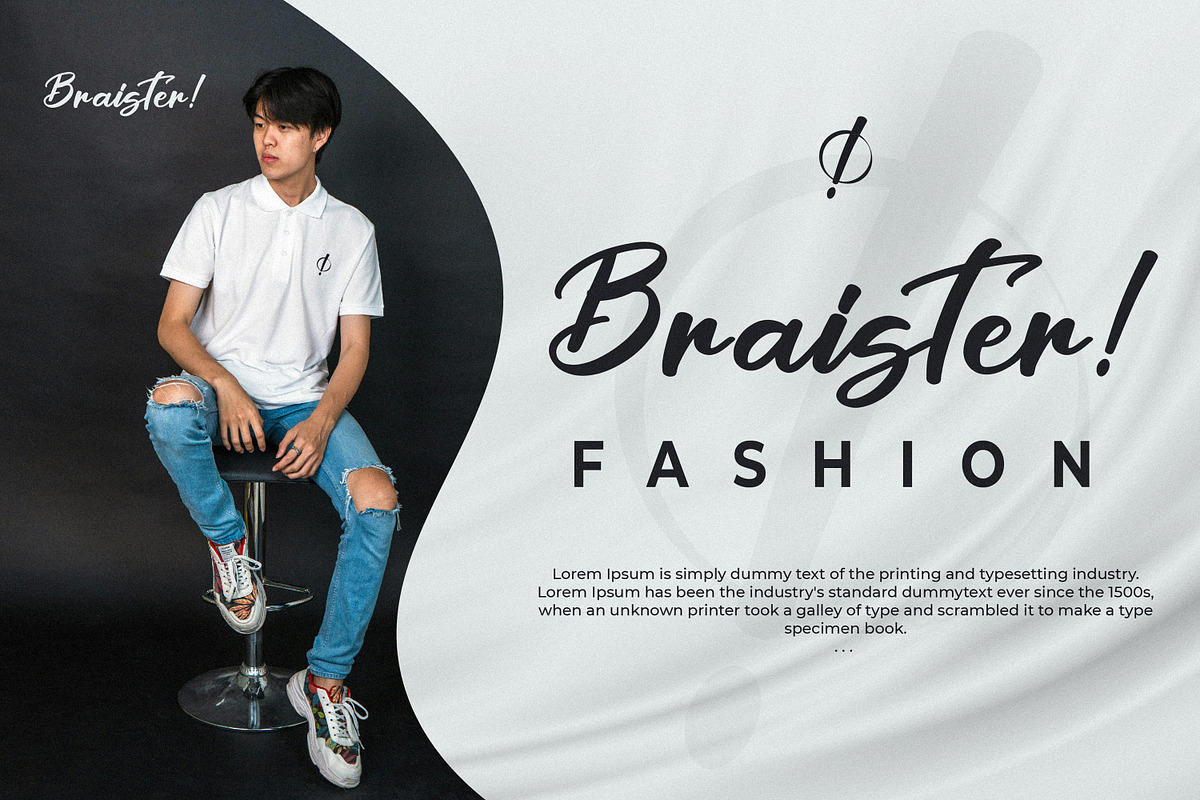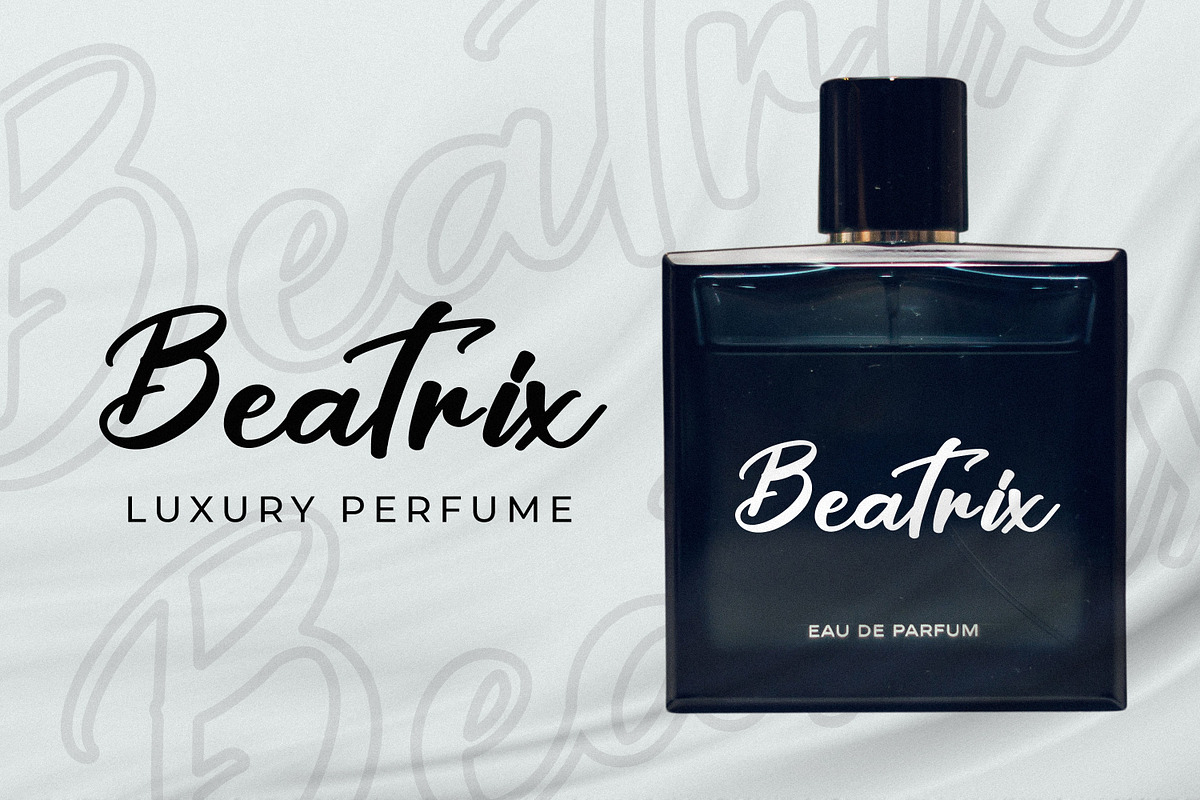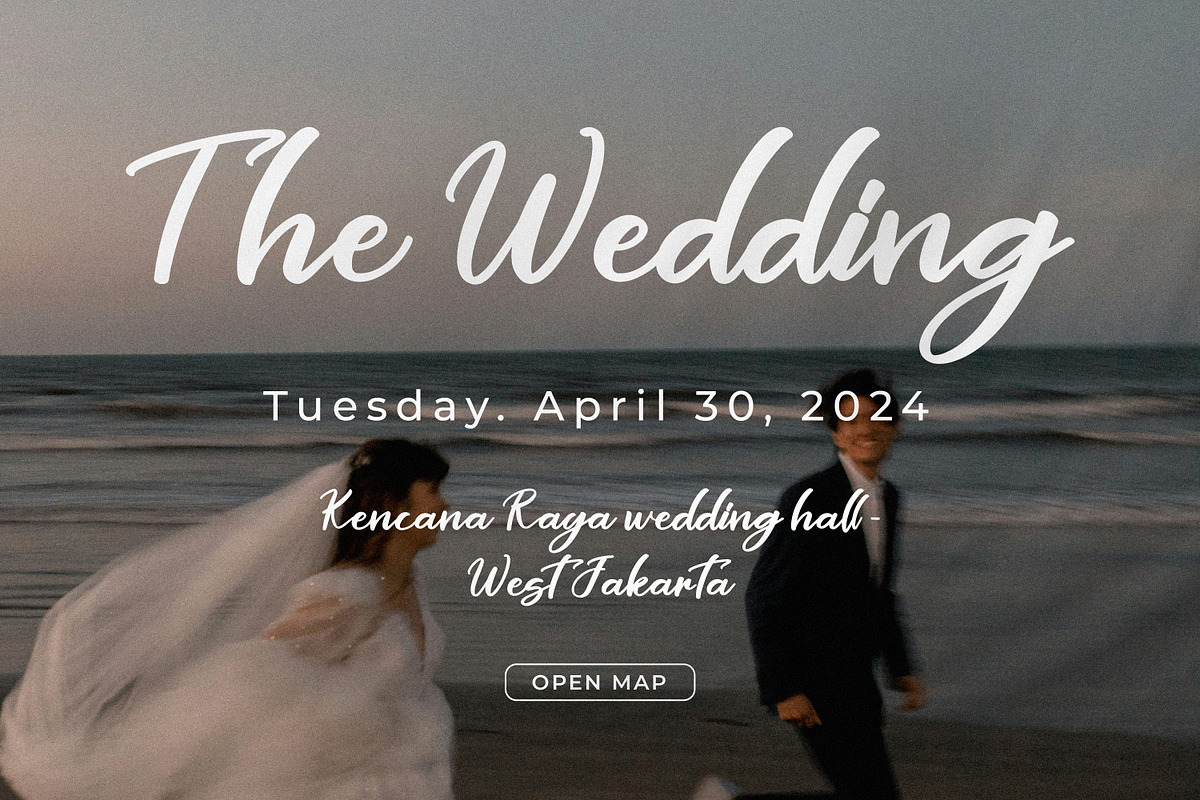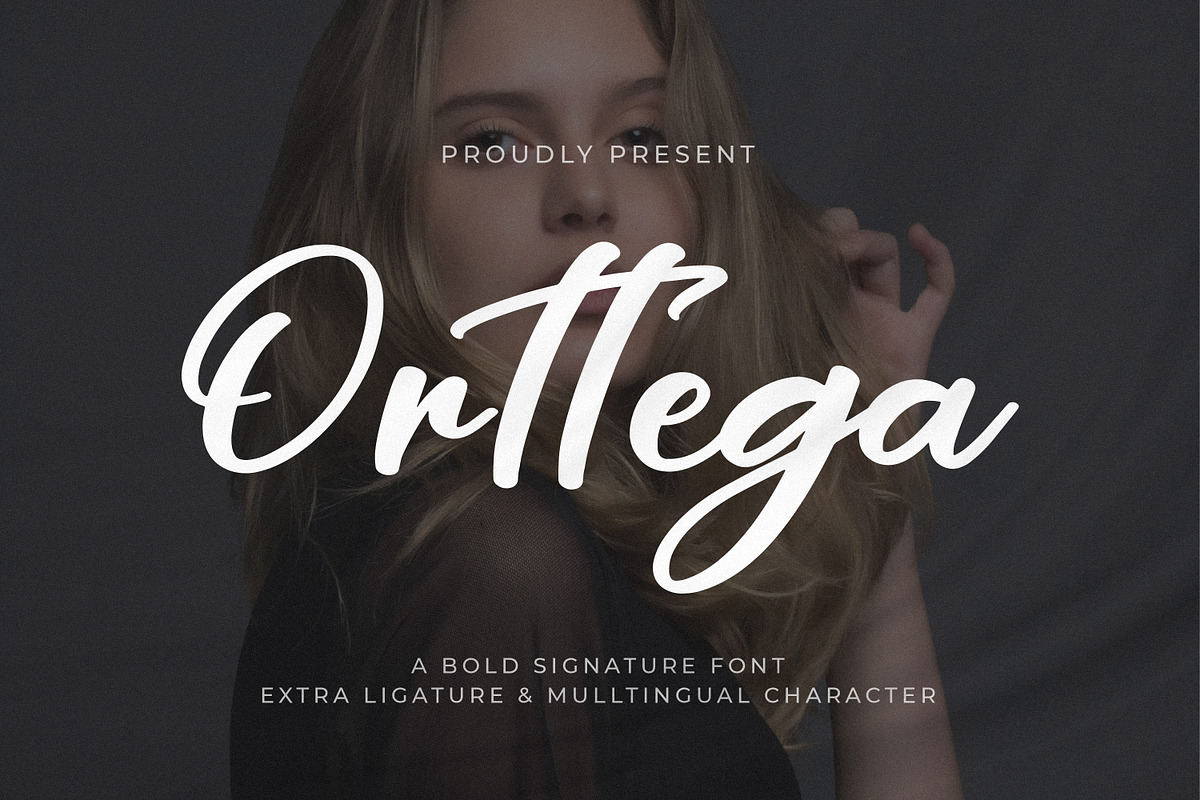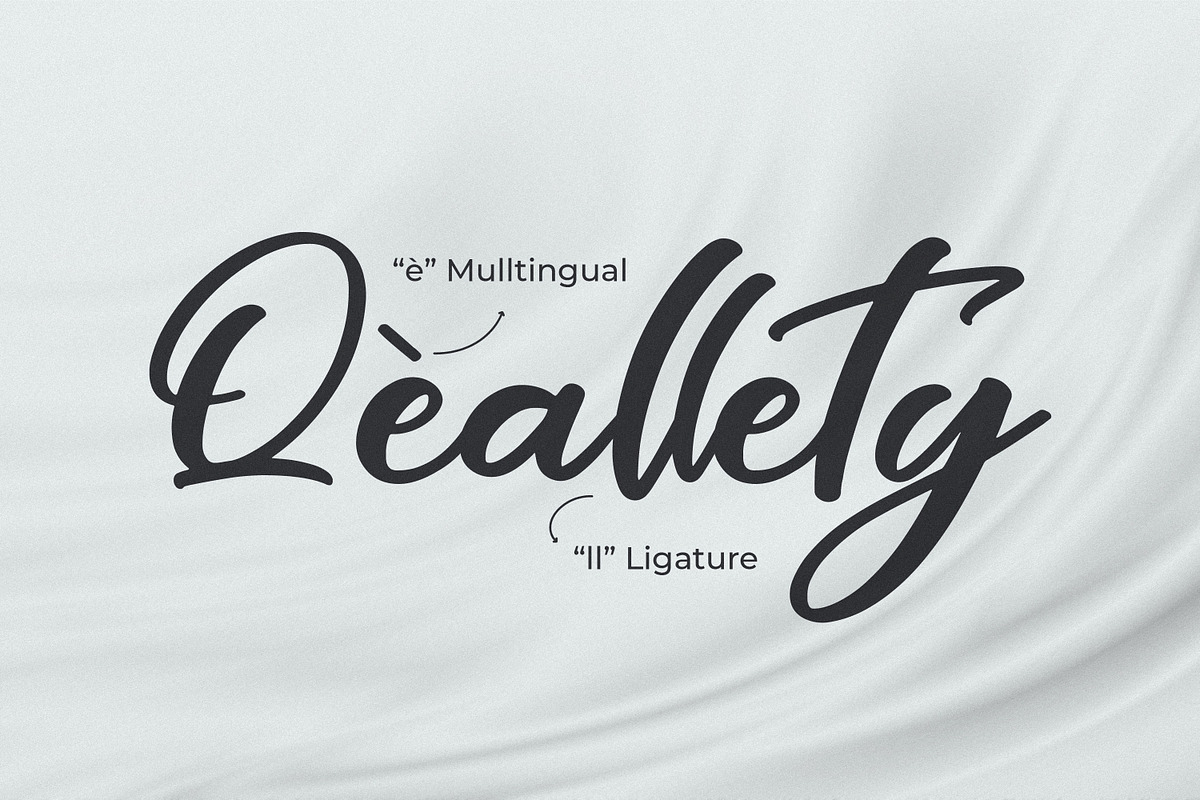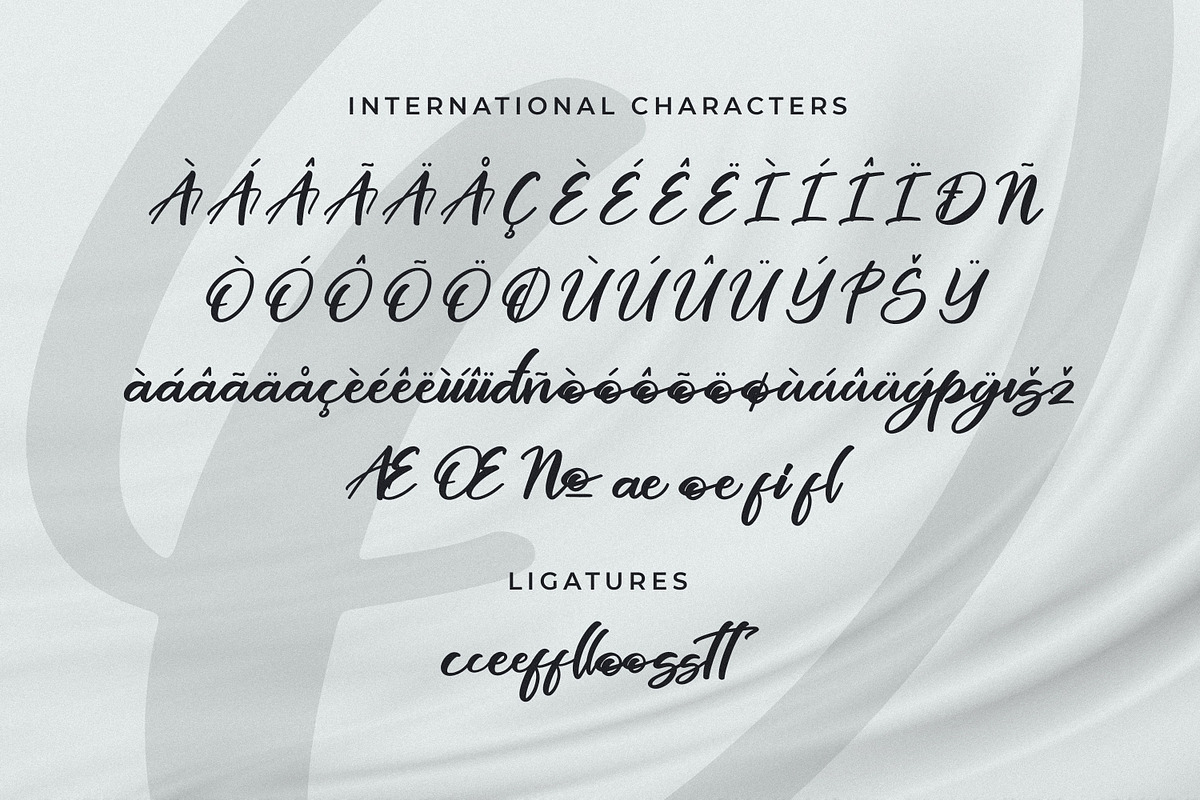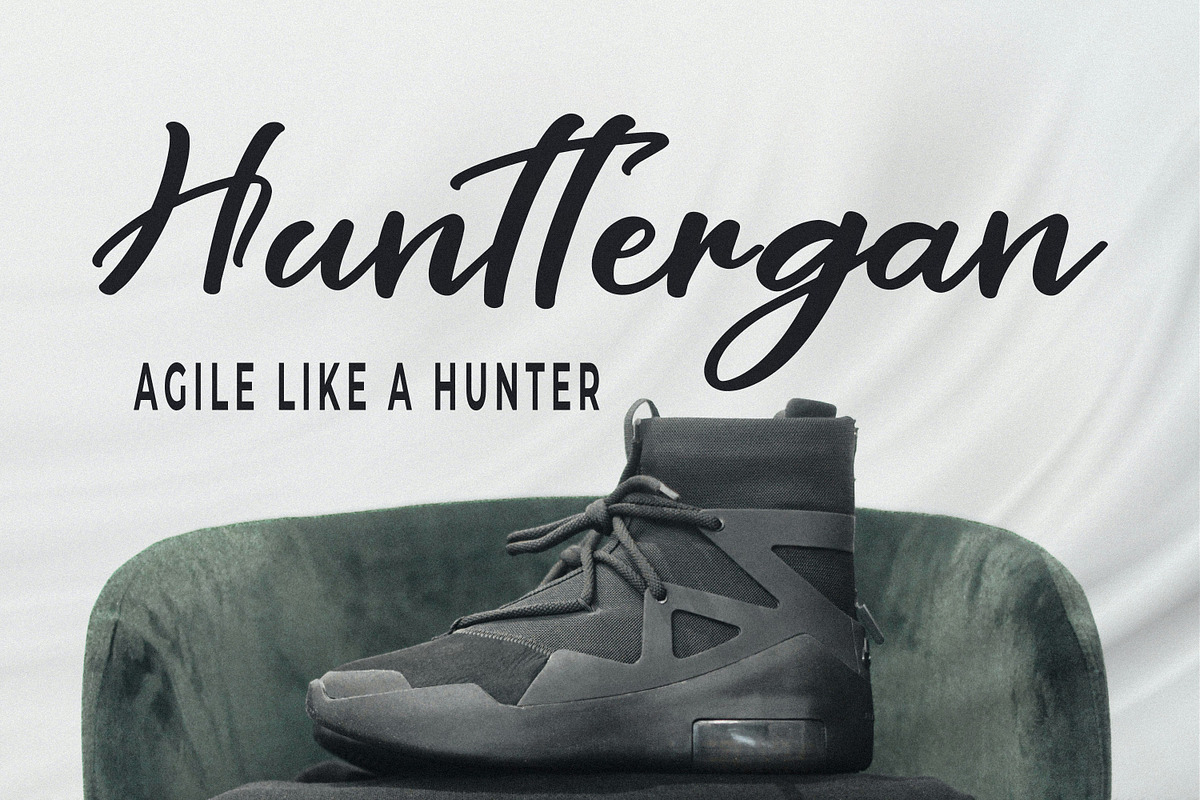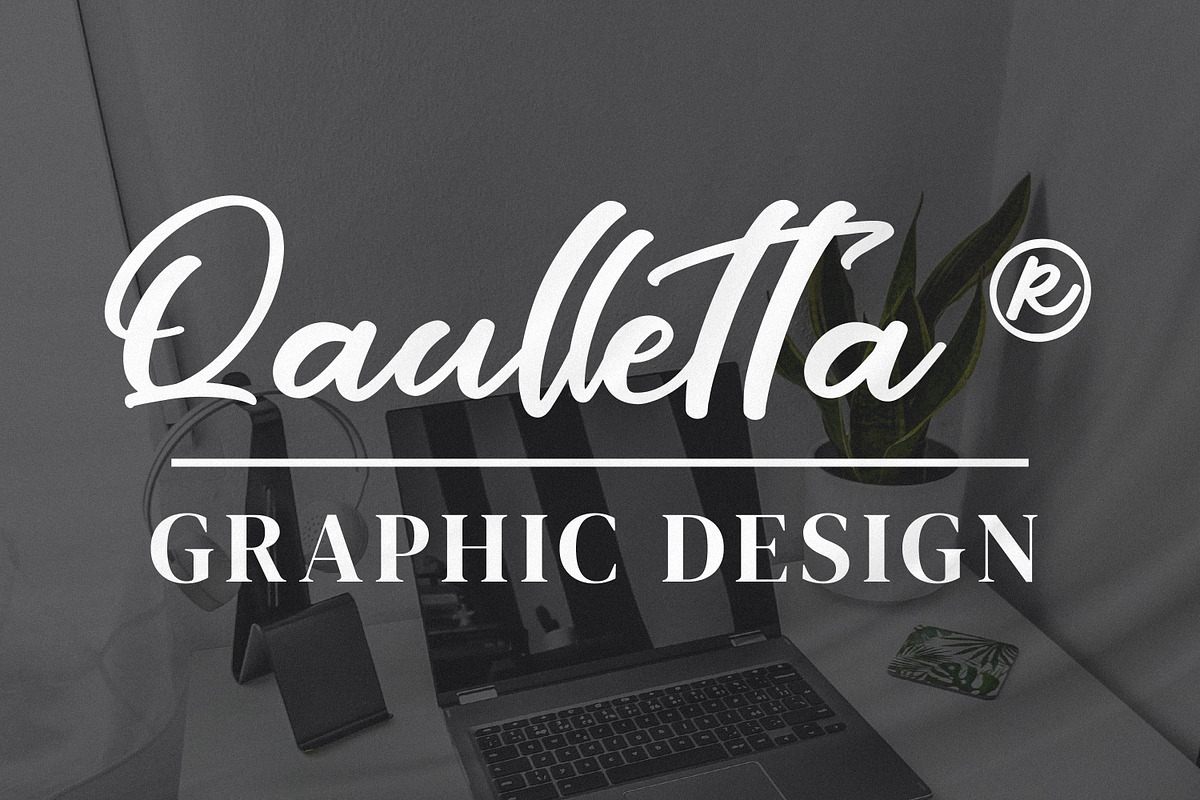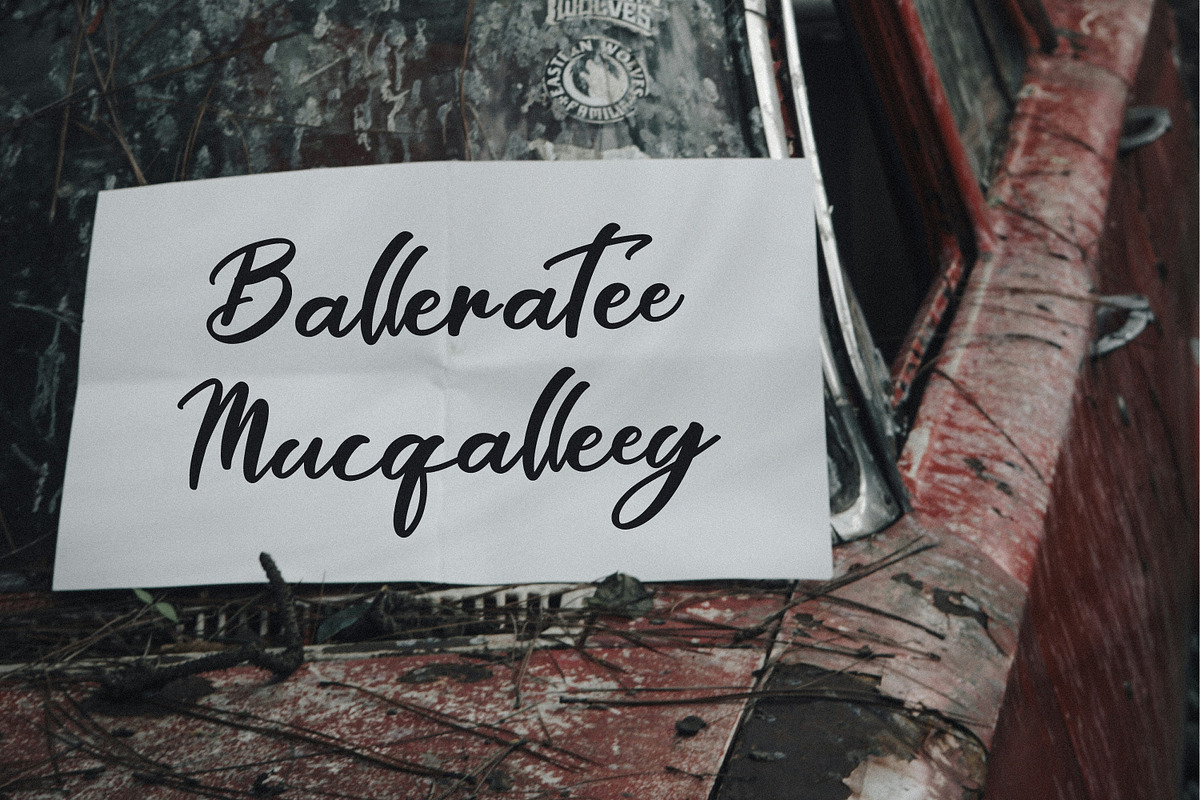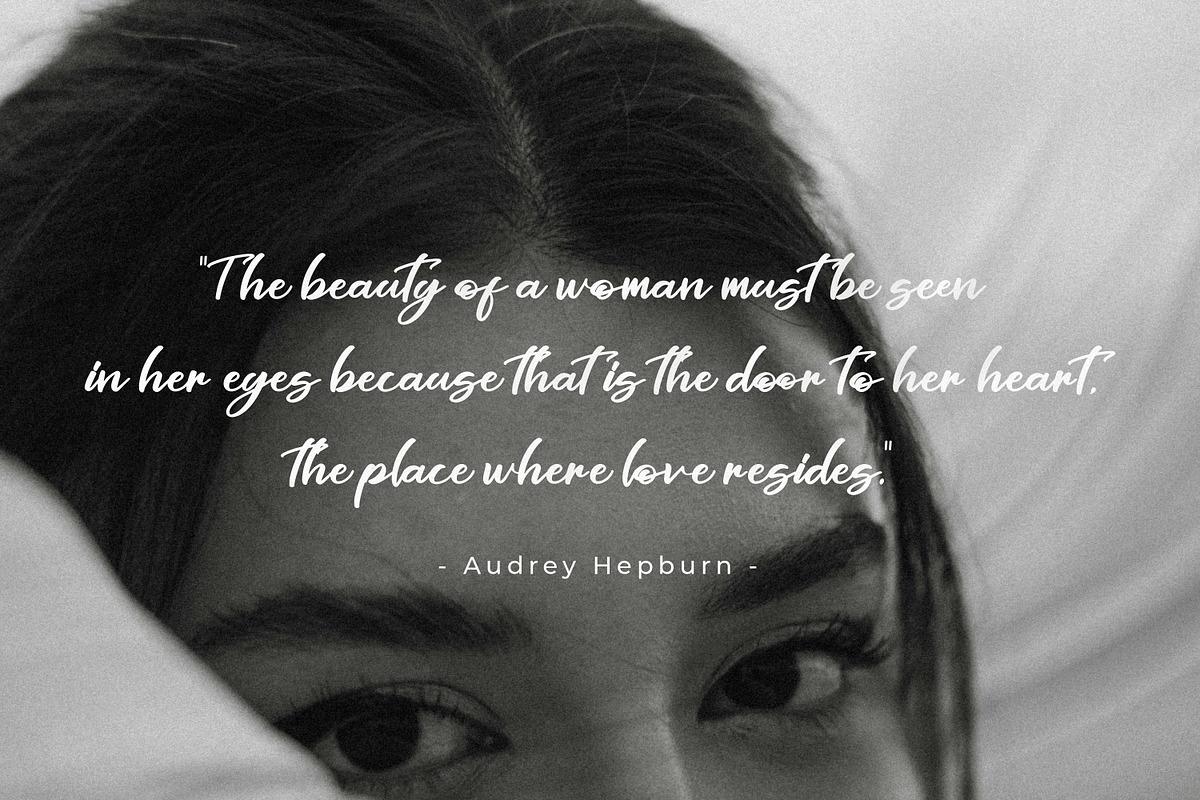
Orttega
Orttega - A Bold Signature Font, from Goresan Studio, suitable for any projects such as: logos, branding projects, homeware designs, product packaging, mugs, quotes, posters, shopping bags, t-shirts, book covers, name card, invitation cards, greeting cards, label, photography, watermark, special events, and all your other lovely projects that need a beautiful script taste.
- Alternate, Ligature and Swash
- Fonts include multilingual support.